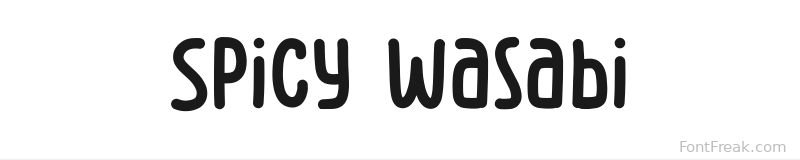
Spicy Wasabi
About Spicy Wasabi
The Spicy Wasabi font by Syaf Rizal is a captivating display typeface that exudes a playful yet contemporary charm. This font falls into the decorative category, characterized by its bold, rounded forms and slightly irregular strokes that evoke a sense of whimsy and creativity. The stroke weight is consistent, providing a harmonious appearance, while the moderate contrast between thick and thin lines adds visual interest. The spacing between the letters is balanced, ensuring legibility while maintaining a fun aesthetic that draws attention.
Spicy Wasabi is particularly well-suited for a variety of applications. Its lively character makes it an excellent choice for restaurant menus, especially those featuring Asian cuisine, where it can evoke a sense of excitement and flavor. Additionally, this font works beautifully for children's book titles, giving a youthful vibe that appeals to young readers. Graphic designers can leverage its unique style for event posters, particularly for music festivals or community events, where a lively and energetic font can capture the spirit of the occasion. It's also a great fit for branding small businesses, especially those in creative industries, as it can help convey a brand's personality effectively.
The target audience for this font includes graphic designers, small business owners, and content creators who are looking to inject a sense of fun and personality into their projects. By providing a free and attractive option, Spicy Wasabi caters to those seeking to enhance their visual communications without breaking the bank.